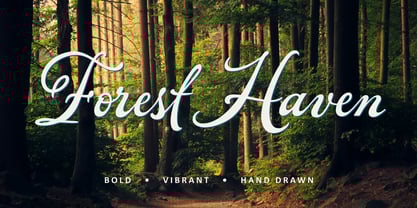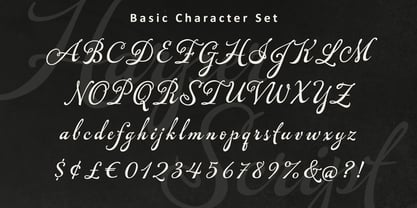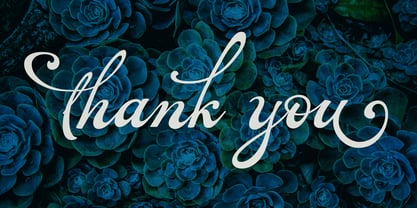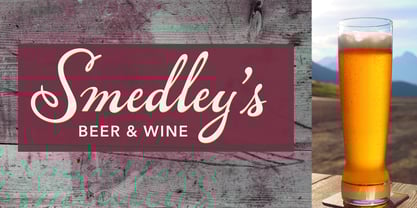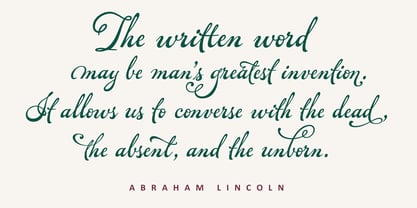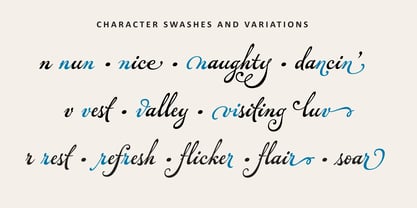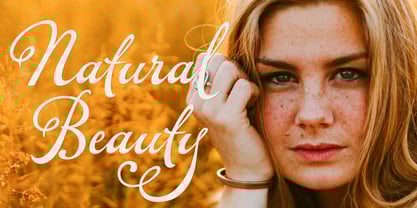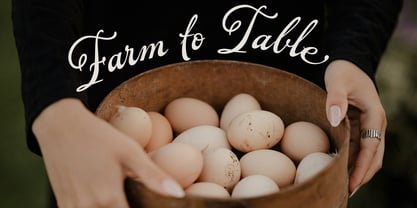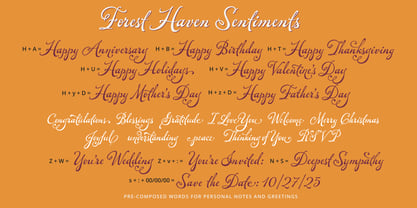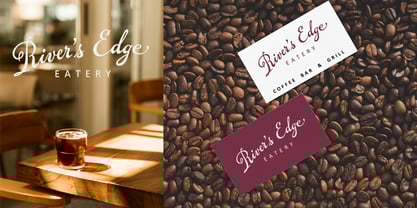
Forest Haven
by Stephen Rapp
The Forest Haven Font Family was designed by Stephen W. Rapp and published by Stephen Rapp. Forest Haven contains 2 styles and family package options.
Forest Haven is a distinctive contemporary style of hand lettering. I developed this style while working on a Cure for Cancer greeting card project back in 2009. The forms exhibit pressure weight much like pointed pen script, only very heavy, especially towards the bottom end. It is very expressive lettering, especially when combined with more traditional typesetting. Use it boldly, it’s not a shy style. The embellished letters can give your design a sensual hand lettered feel. The letters in Forest Haven were originally handwritten rather than constructed on some grid. This is reflected in the way the letter connections work. I find that mix of connected and unconnected in a hand lettered script adds breath to the design. It takes away that sense of grid-based mechanics that so many scripts rely on. Every script font I design tends to have not only loads of alternate letters, but well thought out contextual settings. This allows users to get great typesetting straight up that can then be supplemented with letters that make more of a statement. In apps like Illustrator and InDesign, Forest Haven will add contextual ligatures, standard ligatures, and key contextual alternates automatically as you type. The feature code settings are dependable and yet flexible. The Sentiments version is designed to use as components with regular text fonts for cards, invitations, thank you notes and so forth. Some of the words can be combined such as “Happy” followed by “Birthday”, “Valentine’s Day”, or “Anniversary.” Most of these words can be constructed from the larger Forest Haven font, though some words have uniquely tweaked letters.
Stephen Rapp is based out of Kent, OH. He came to type design through his work as a lettering artist at American Greetings. Having studied with many of the best calligraphers, Stephen has taught workshops across the nation and at international conferences. Pulling from his expertise with calligraphy and lettering he develops fonts designed to be both well crafted and user friendly. He also designs and develops proprietary fonts to meet the needs for both companies and individuals. His commercial fonts have garnered awards like the Type Director’s Club award.